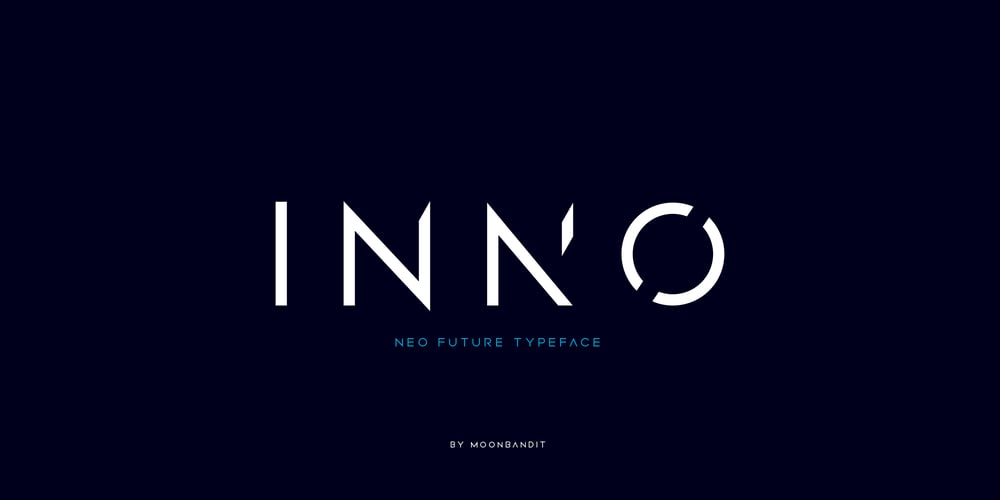
MBF Inno
MBF Inno font
MBF Inno Font Family was designed by Bramaji Dipa Manggala and published by Moonbandit. MBF Inno contains 1 styles and family package options. Inno font, is a modern take on the futuristic scifi theme, this typeface is clean, sharp, and have plenty of alternative, you can easily access them through uppercase lowercase. This font is great for headlines, sub titles and many attention grabber projects.